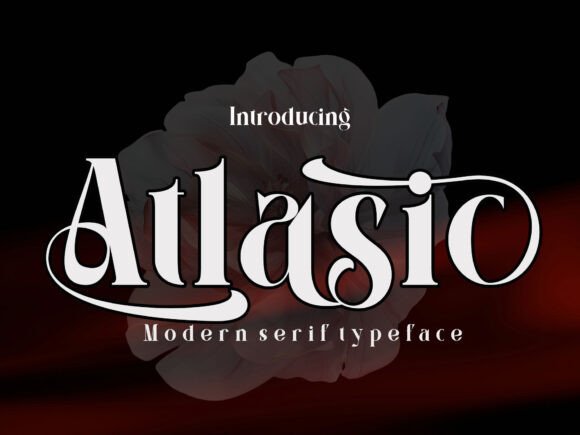
The Designer’s Delight: Exploring the Elegance of Atlasic Font
An Honest Review of Atlasic Font
Atlasic Font has won my heart with its simplicity and elegance. Here’s what I love about it:
- ✨ Simple and clean design with a modern twist
- ✅ Highly versatile and suitable for various design projects
- ✅ Excellent for branding, logos, and wedding designs
- ✅ Supports multiple languages and OpenType features
However, no font is perfect, and Atlasic Font has a few quirks:
- ⚠️ Limited number of stylistic alternates
- 🤔 May not be the best choice for body text due to its elegant, yet refined nature
The Story Behind Atlasic Font
Atlasic Font was designed with the intention of creating a modern, elegant, and versatile font suitable for various design projects. The designer aimed to craft a font that would be both simple and refined, making it perfect for branding, logos, and wedding designs. While the actual design process and inspiration might be unknown, it’s clear that Atlasic Font has become a popular choice among designers and creative hobbyists.
| Font Name | Atlasic Font |
| What is Atlasic Font best used for? | Atlasic Font is perfect for branding, logos, wedding designs, social media posts, advertising, product packaging, product design, labels, photography, watermarks, invitations, stationery, and more. |
| Is Atlasic Font suitable for body text? | While Atlasic Font is elegant and refined, it may not be the best choice for body text due to its sophisticated nature. It’s better suited for headlines, titles, and short paragraphs. |
| Does Atlasic Font support OpenType features? | Yes, Atlasic Font supports OpenType features, including ligatures and stylistic alternates. |